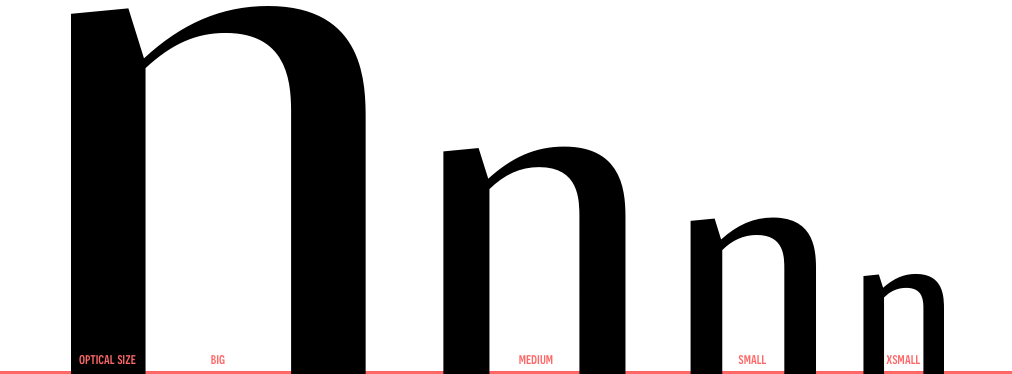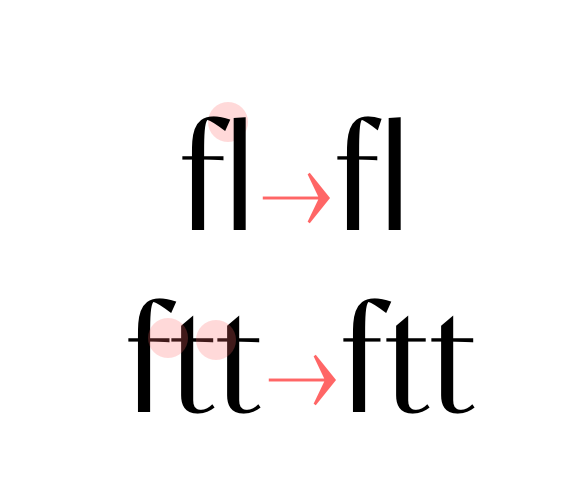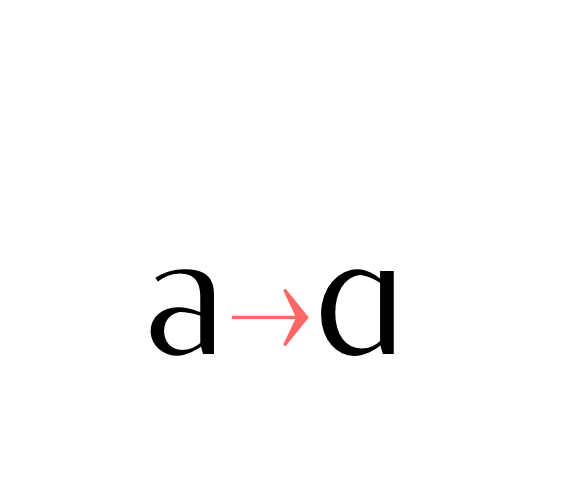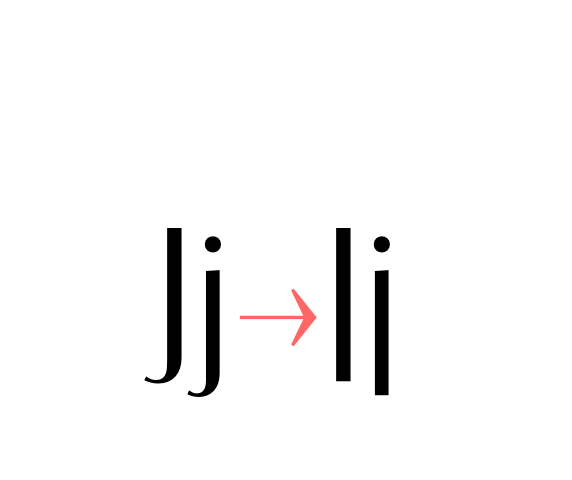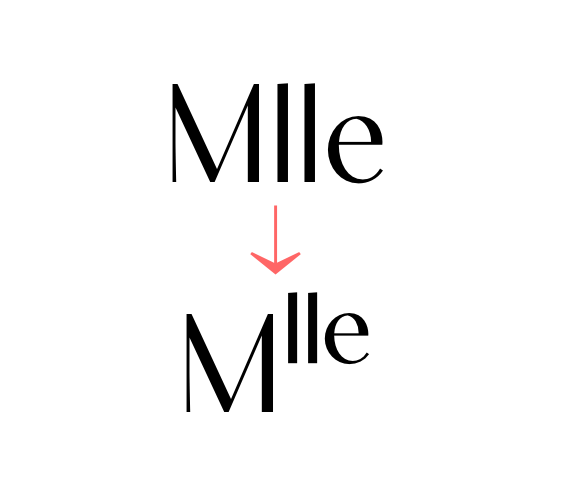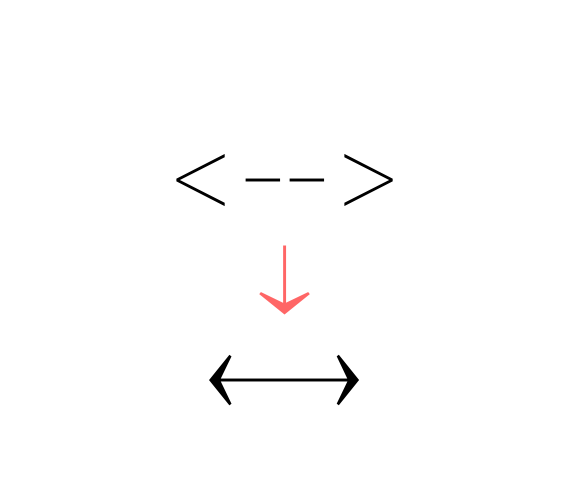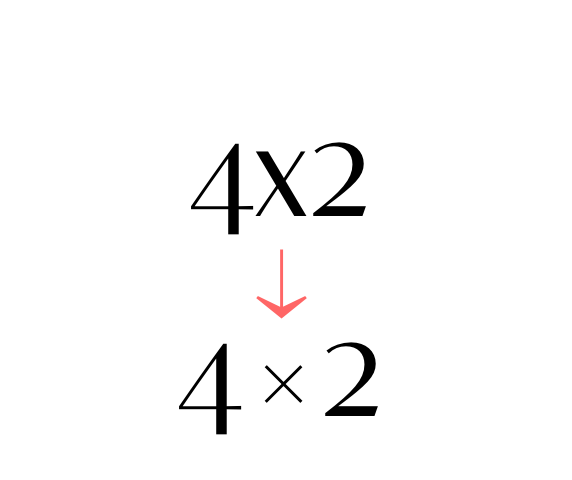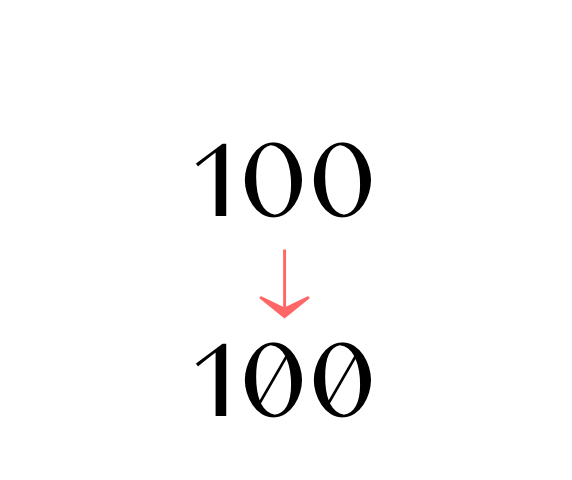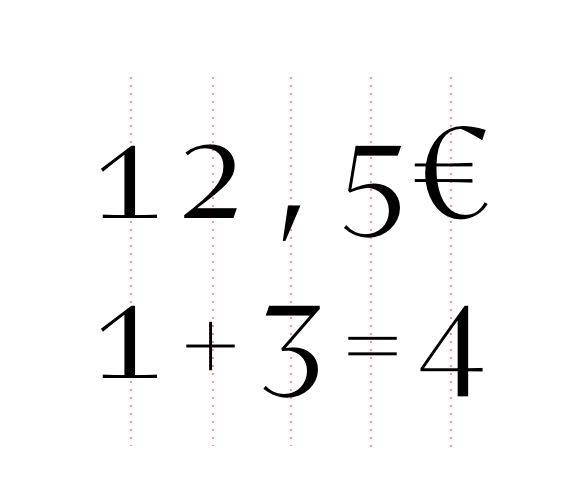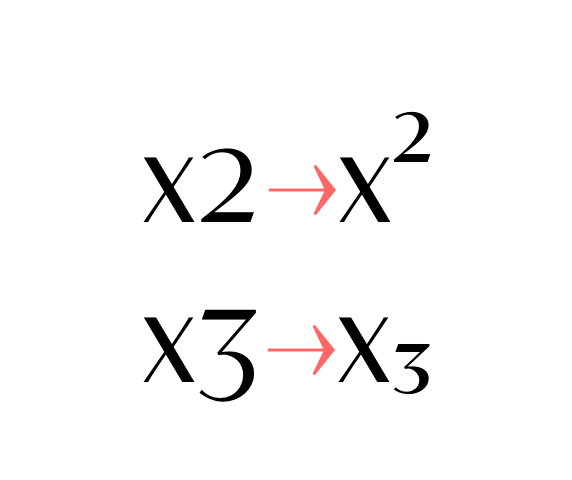
Contralto, an elegant high contrast Sans-serif font. 5 weights with italics × 4 optical sizes.
Contralto Font Family. An elegant high contrast sans-serif typeface
specimen with weights examples: light, light italic, regular, regular italic, demibold, demibold italic, bold, bold italic, black, black italic.
Contralto is a high contrast sans-serif font family, crafted to look elegant but contemporary thanks to soft humanist shapes mixed with sharp geometric details.
Contralto comes in 40 styles: 5 weights × italics × 4 optical sizes, to help optimising contrast and readability. However, you can also use them to fine tune the mood of your graphical composition.
Contralto’s generous character set and Opentype features let you meet the most demanding layout needs and lets your creativity fly!
letter n displayed in all its optical sizes. Each style is sized to make the thinner strokes to match
anticollision ligatures
Alternate a (ss01)
Alternate g (ss02)
Alternate j (ss03)
Alternate y (ss04)
case sensitive forms
ordinals
arrows (ss06)
contextual alternate
contextual alternates
slashed zero
lining & oldstyle figures
tabular figures & symbols
superscripts & subscripts
numerators & denominators
fractions
Advanced localisation
Contralto uses the power of Opentype to overstep the current technical limitations, enriching the typesetting experience in a totally automated way. Just set your text language to activate the associated helpers.
german uppercase eszett
turkish idotaccent
polish zdotaccent variant (ss05)
Polish zdotaccent variant (ss05)
catalan punt volat
dutch double acute ij
moldavian & romanian dicritics
ideal spacing in french
combining diacritics